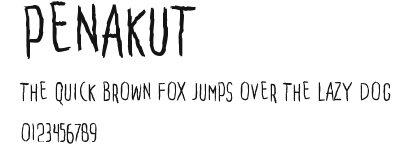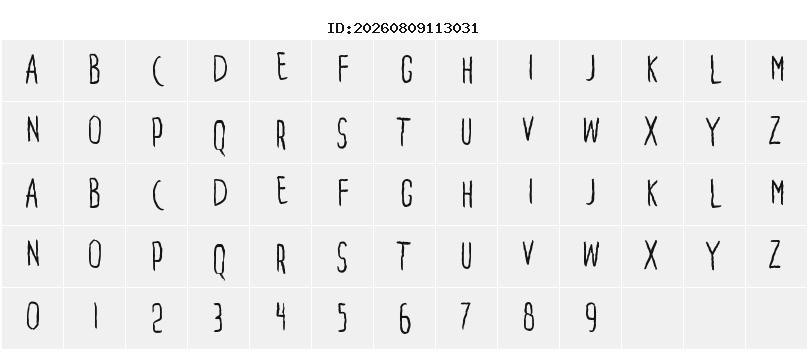
• Font Name: Penakut
• Font Style: normal
• Full Font Name: Penakut Normal
About Penakut.ttf
Penakut.ttf is a modern, elegant sans-serif font designed for ultimate readability and visual harmony. Perfect for branding, headlines, web design, and print materials.